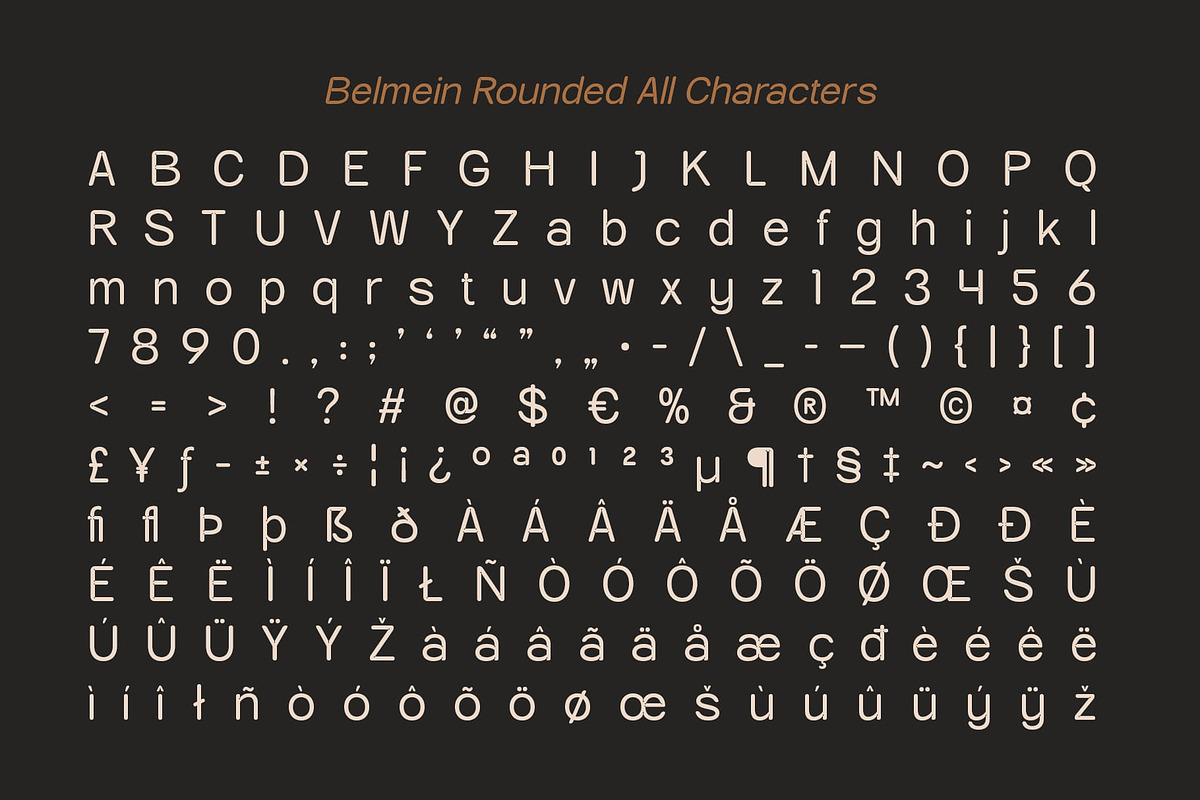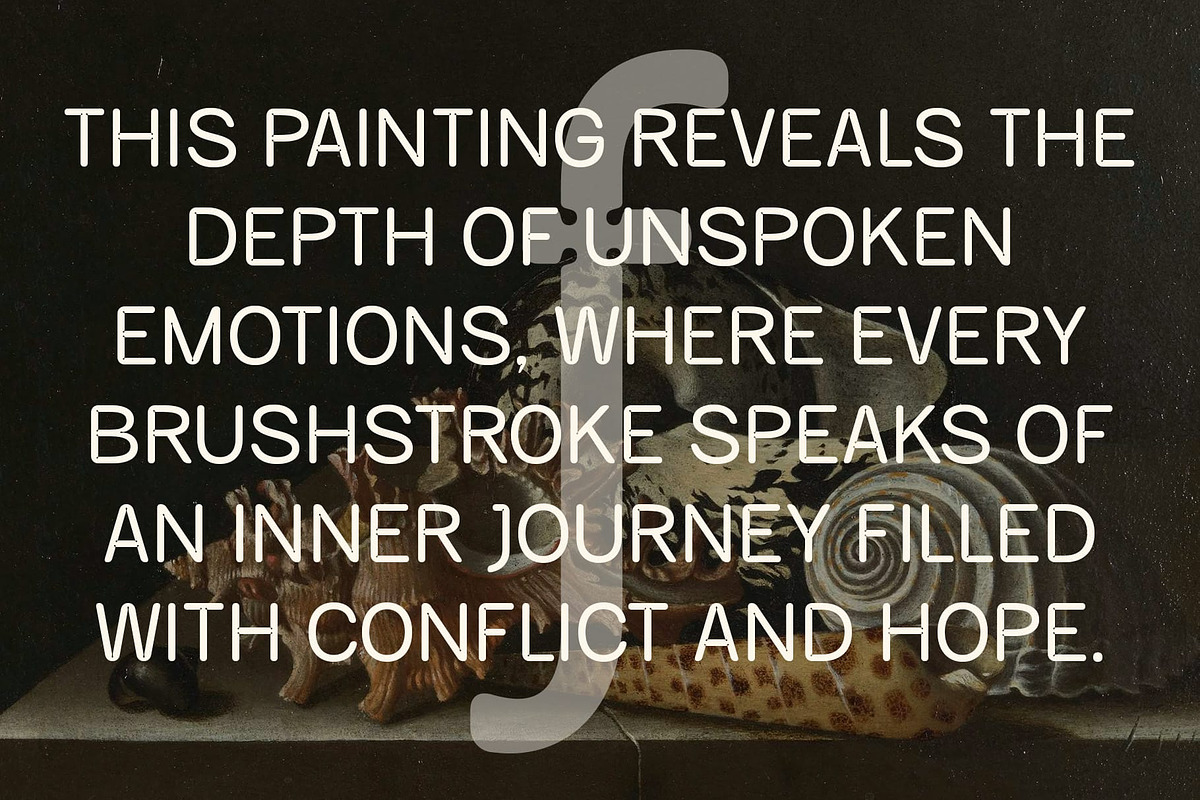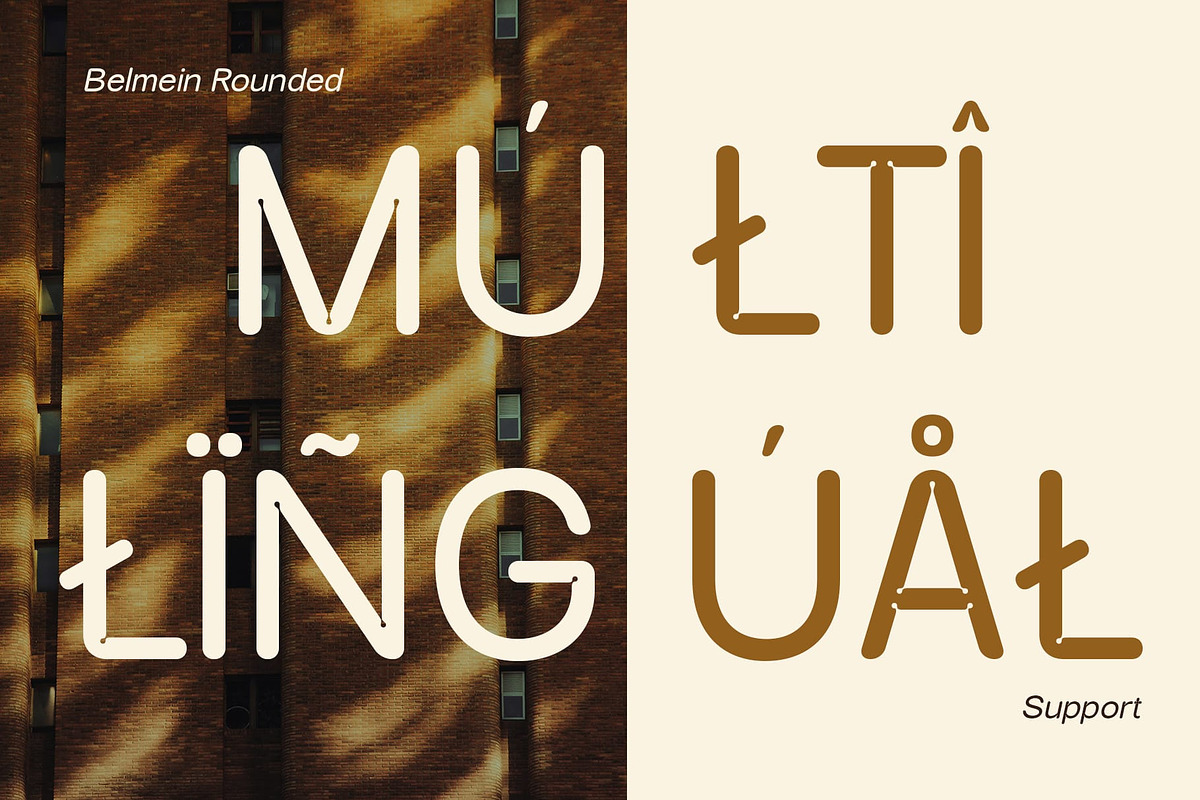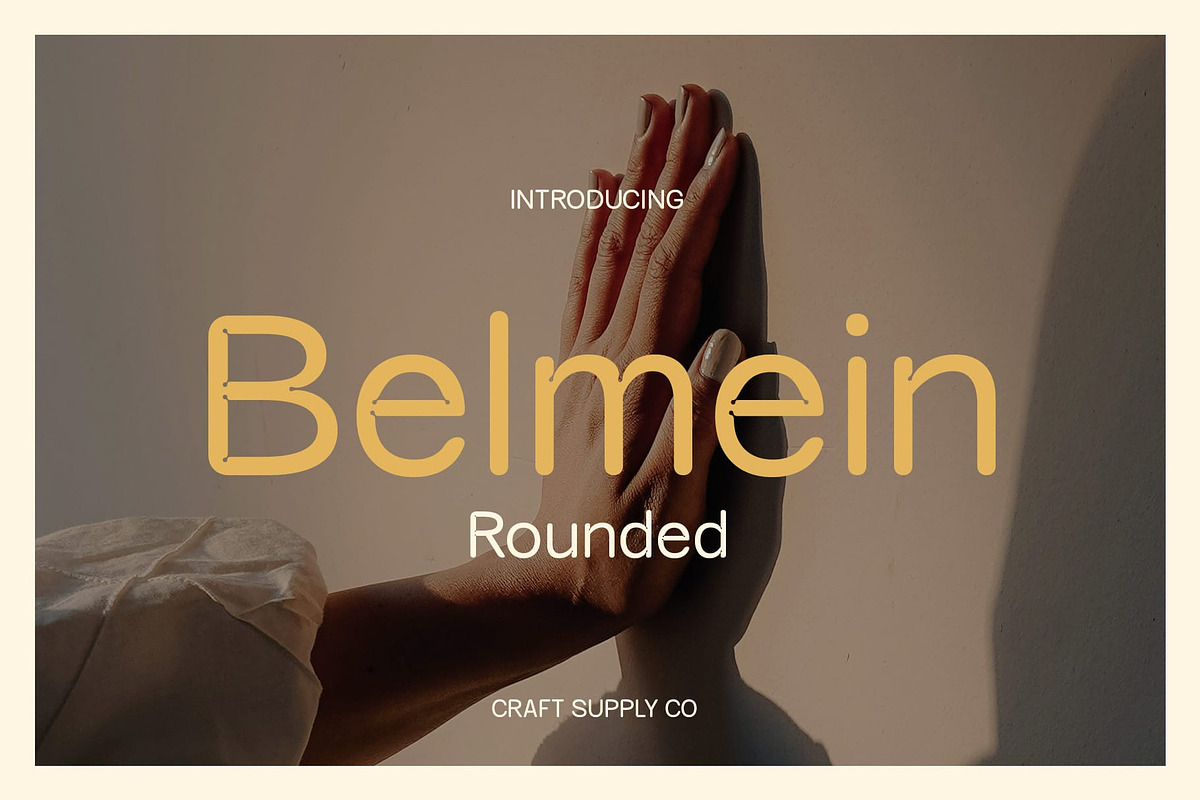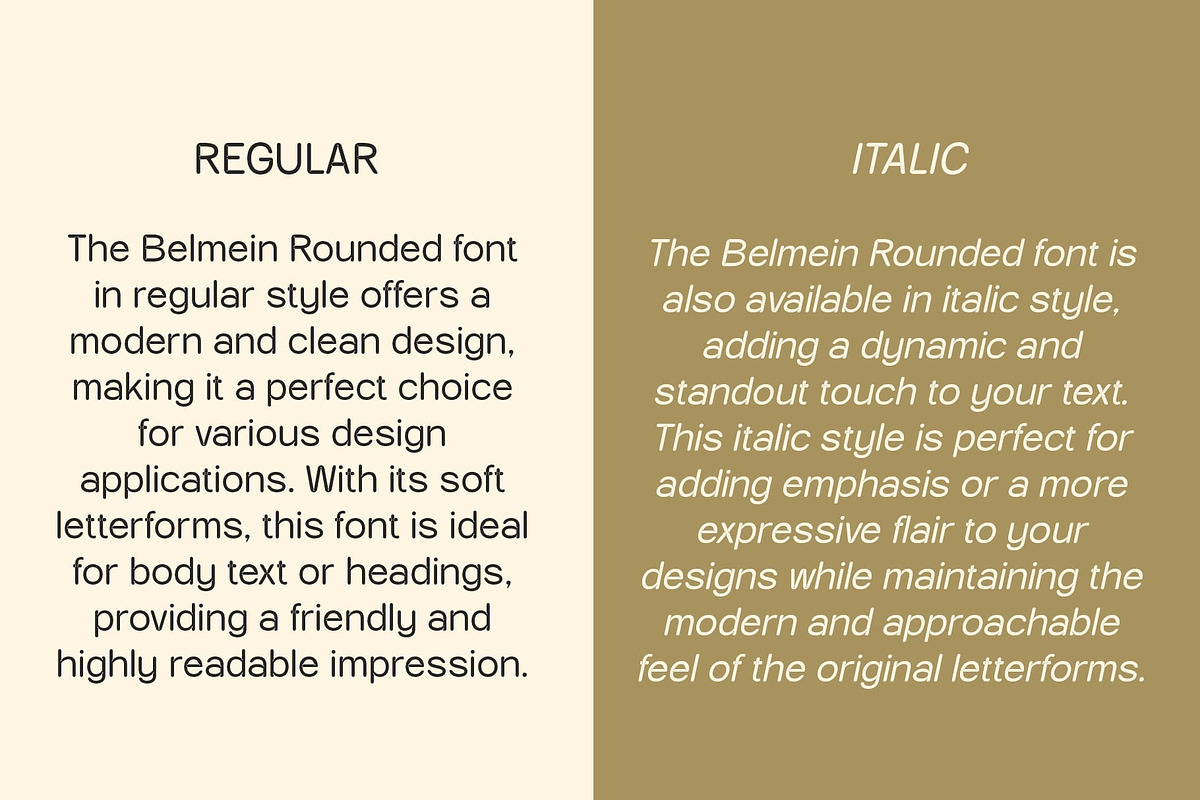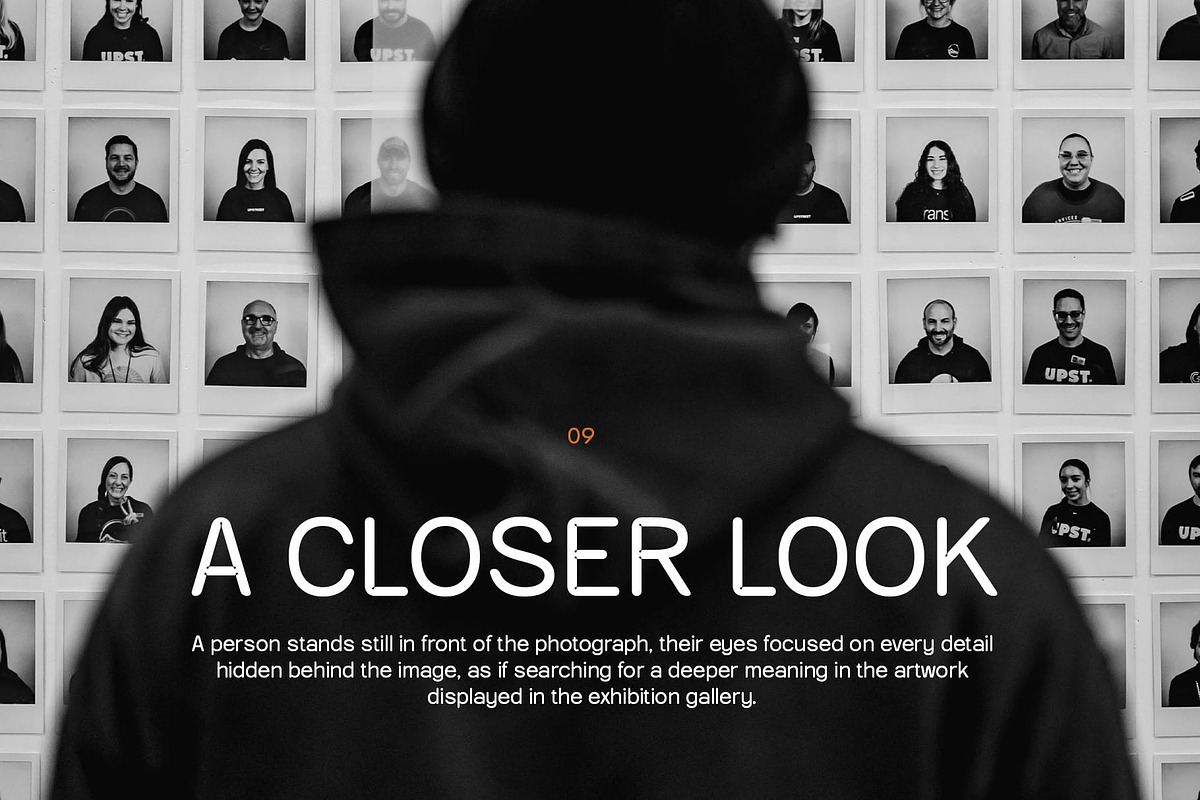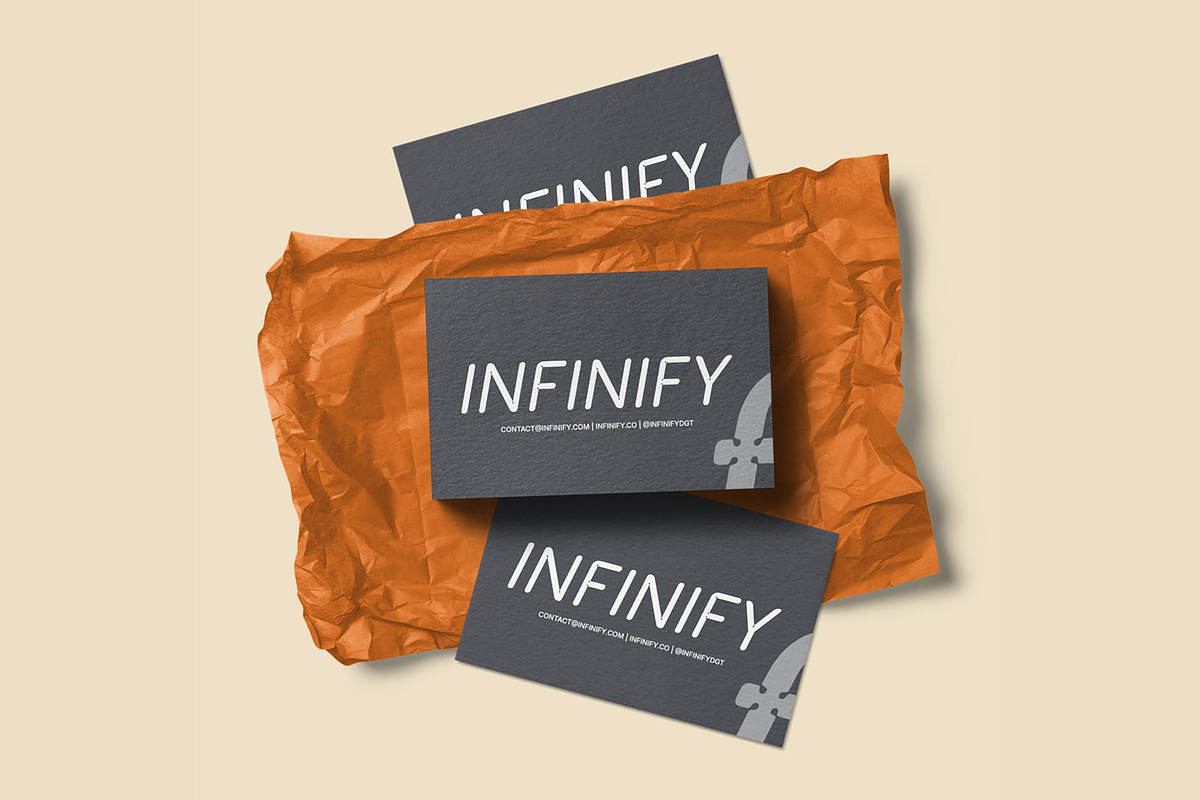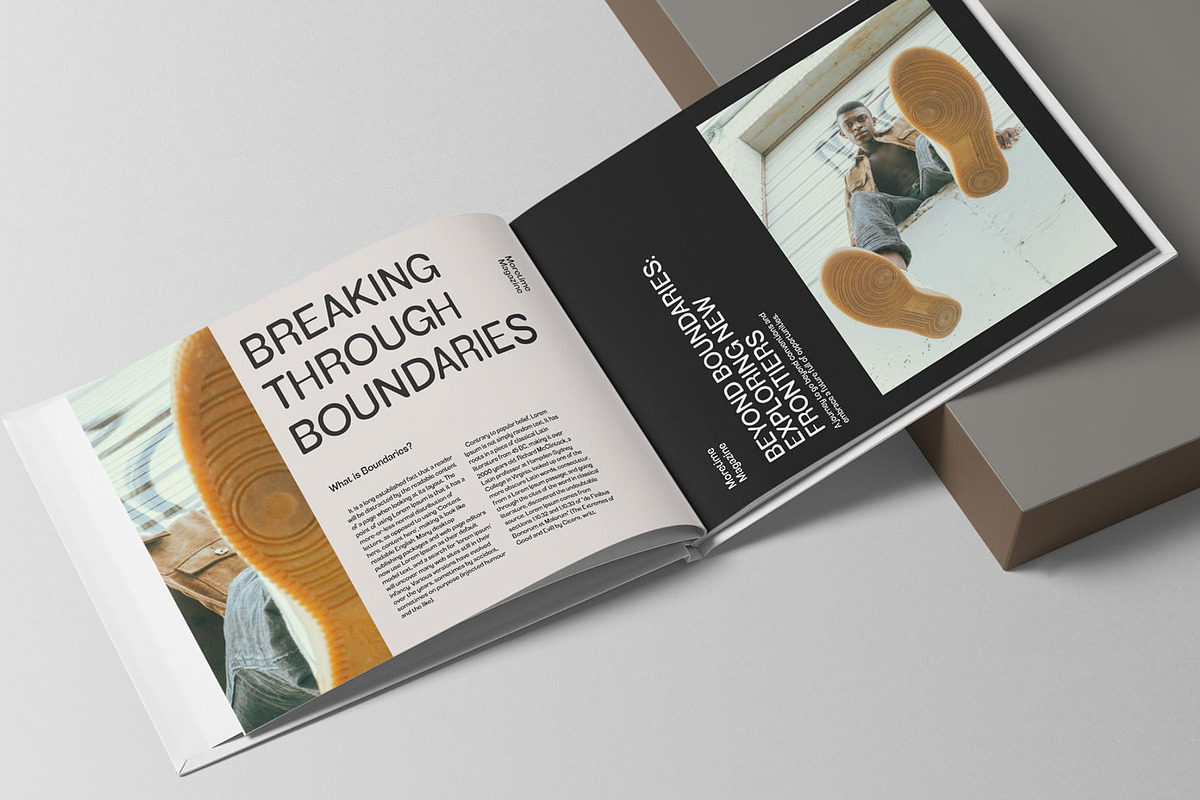
Belmein Rounded
Belmein Rounded Font – A Modern Sans Serif with Character and Precision
Geometric Base with Rounded Edges Belmein Rounded is a modern sans serif font that seamlessly merges geometric shapes with rounded edges, creating a clean and approachable look. Its geometric structure provides a sharp, precise appearance, while the rounded corners soften the overall design, giving it a friendly and welcoming feel. This balance of strong form and soft edges makes the font perfect for contemporary branding and digital interfaces, offering both professionalism and warmth in equal measure.
Inktrap Details for Precision and Technical Appeal Incorporating inktrap details, Belmein Rounded enhances its modern appeal with technical precision and a touch of uniqueness. The inktrap elements, designed to optimize legibility and improve printing quality, bring an added layer of sophistication, making this font stand out in both print and digital formats. This combination of geometric structure and inktrap refinement provides a contemporary look with a distinctive edge.
Versatile for Digital Interfaces and Contemporary Branding With its blend of clean lines, technical appeal, and approachable roundness, Belmein Rounded is ideal for use in contemporary branding, web design, digital interfaces, and modern marketing materials. Whether you’re designing a logo, website, or app interface, this font’s versatile and bold design ensures clarity and impact, helping your brand stand out in the digital landscape.